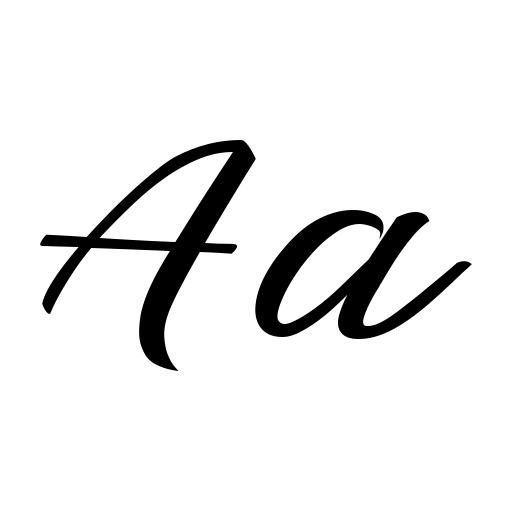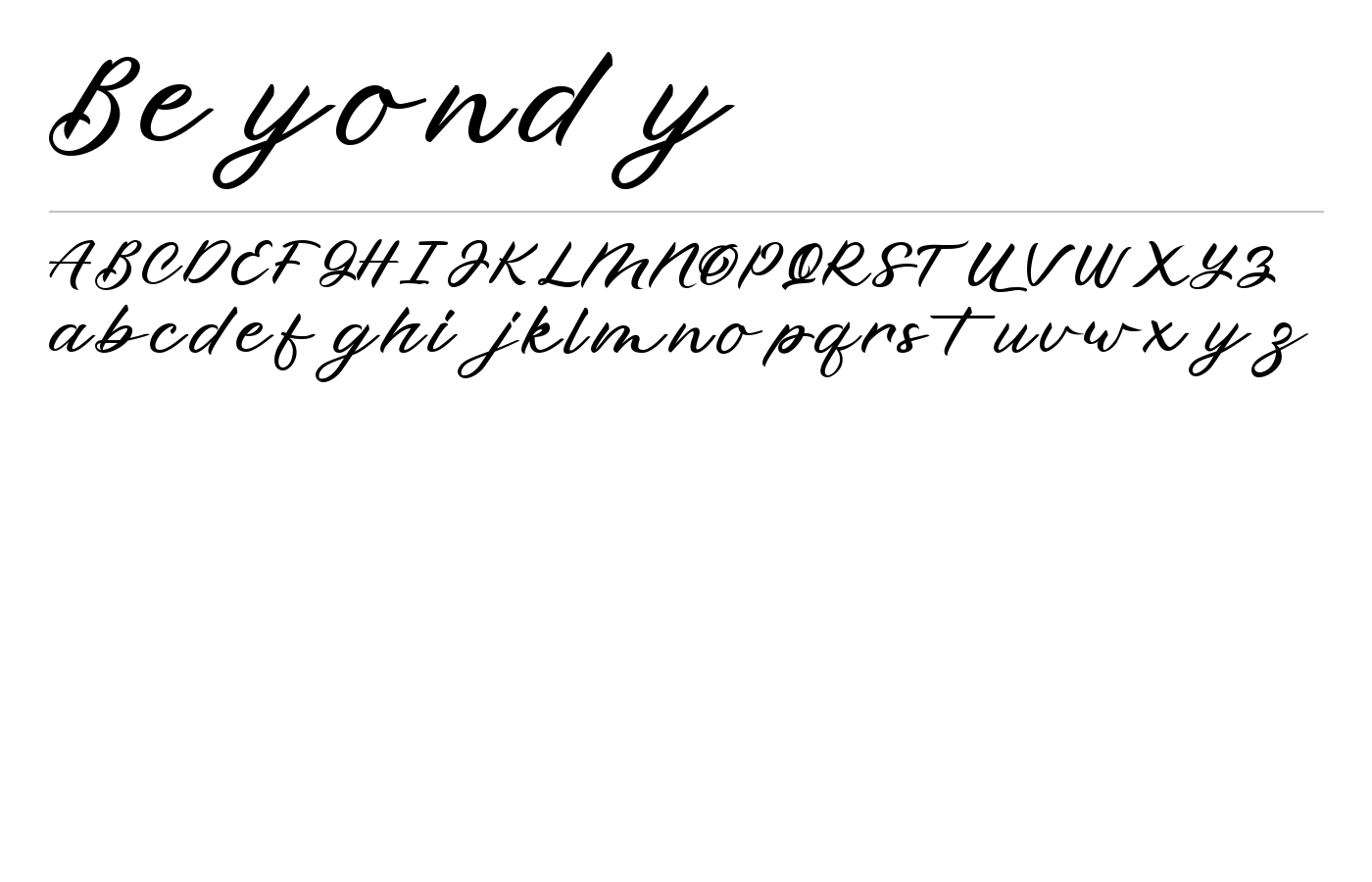
Beyondy Font is a stylish and elegant script typeface with smooth, flowing strokes that give it a hand-drawn, calligraphic feel. Its light weight and natural curve rhythm make it perfect for adding a personal, sophisticated touch to invitations, branding, and creative headlines where a graceful yet approachable vibe is desired.
Beyondy Font
About Beyondy Font
| Font family | Beyondy Font |
| Designer | Maulana Creative |